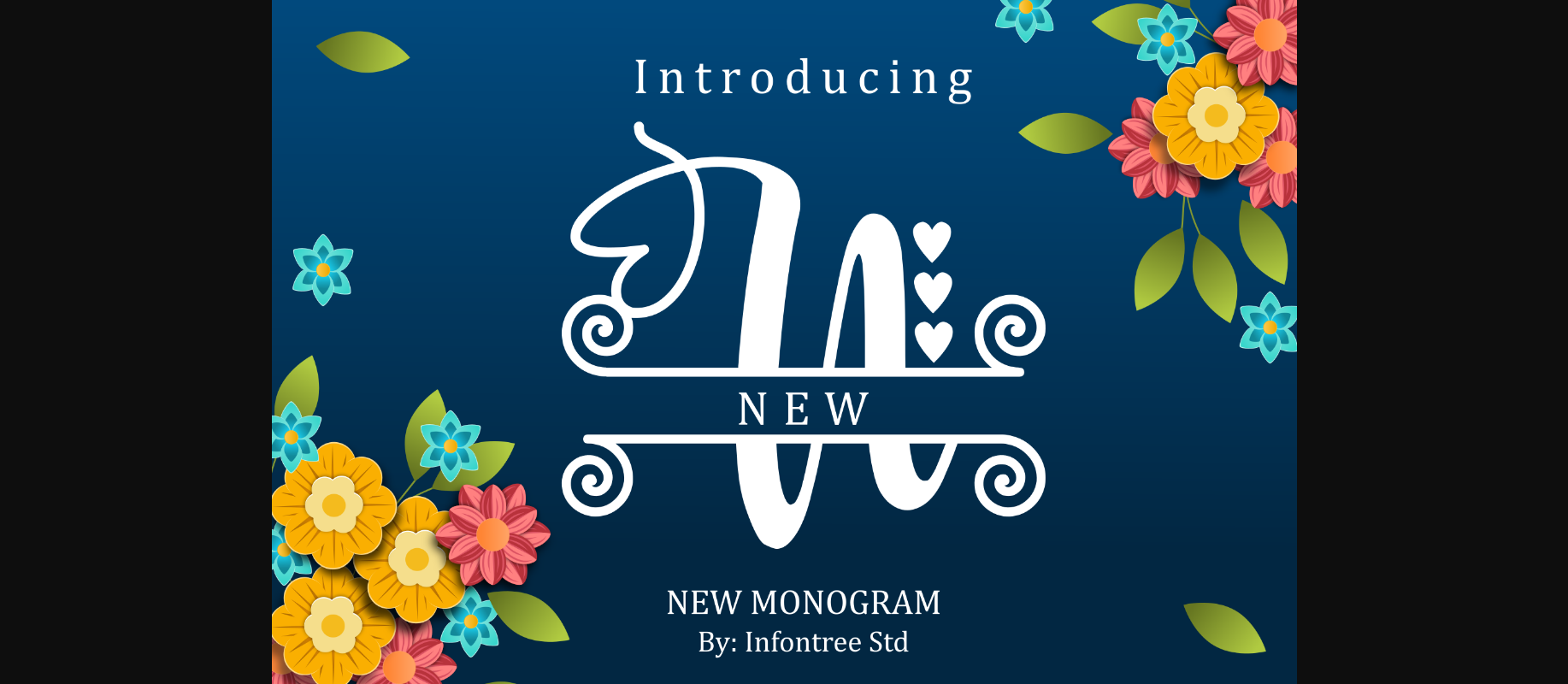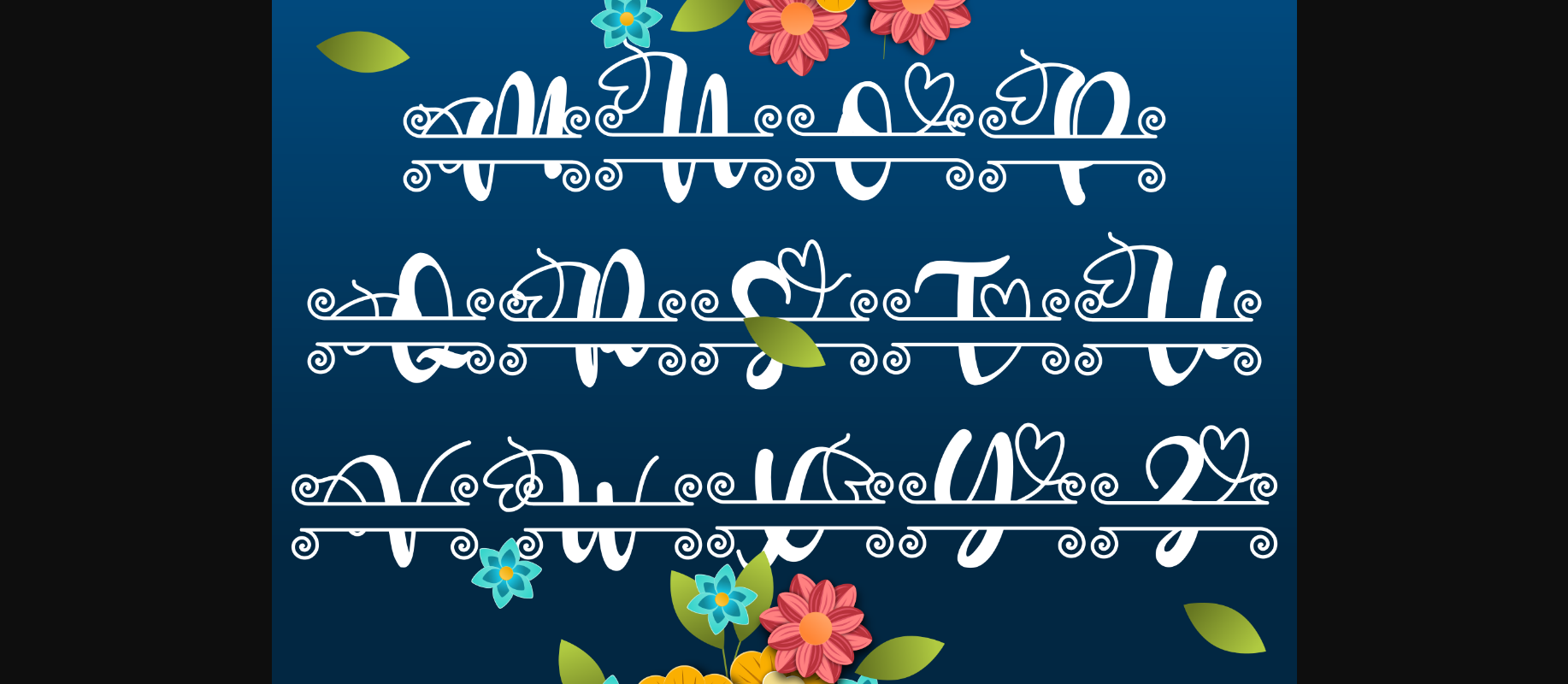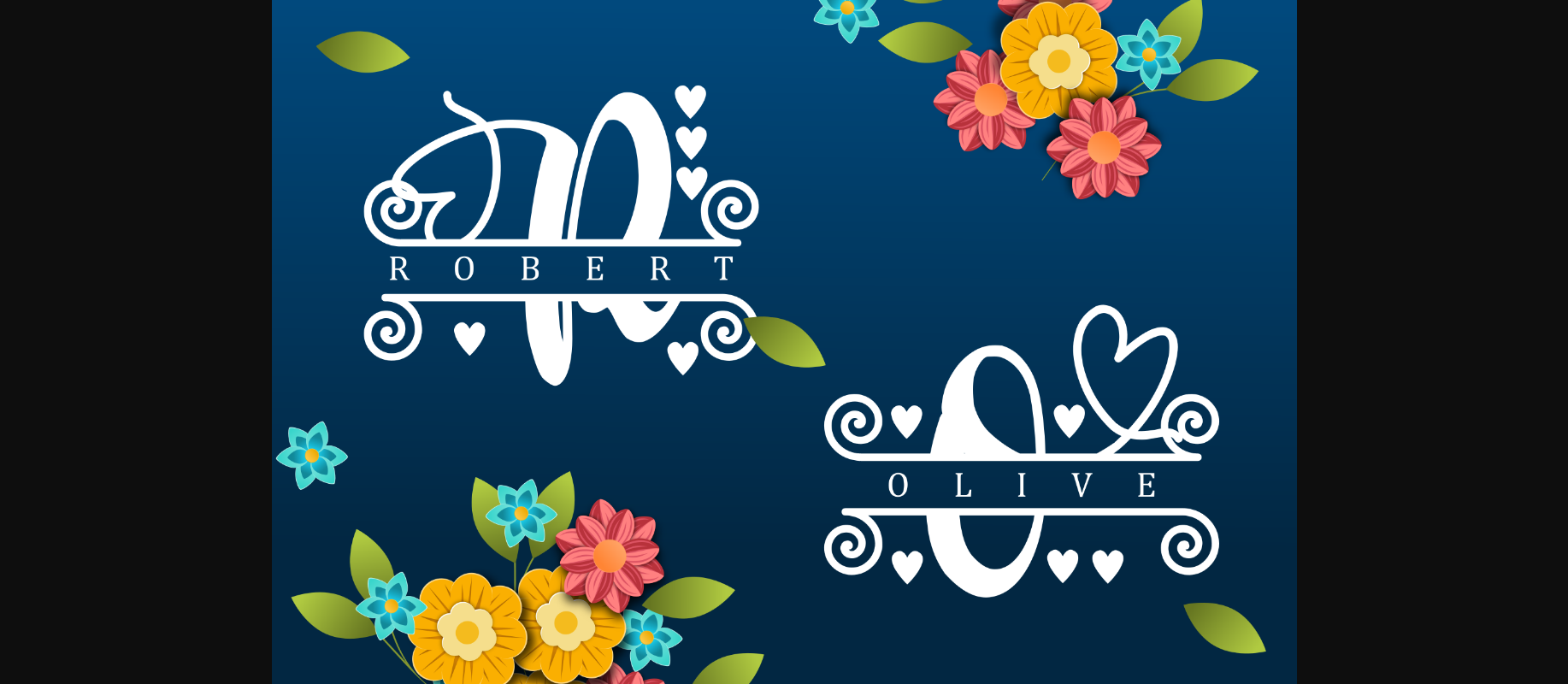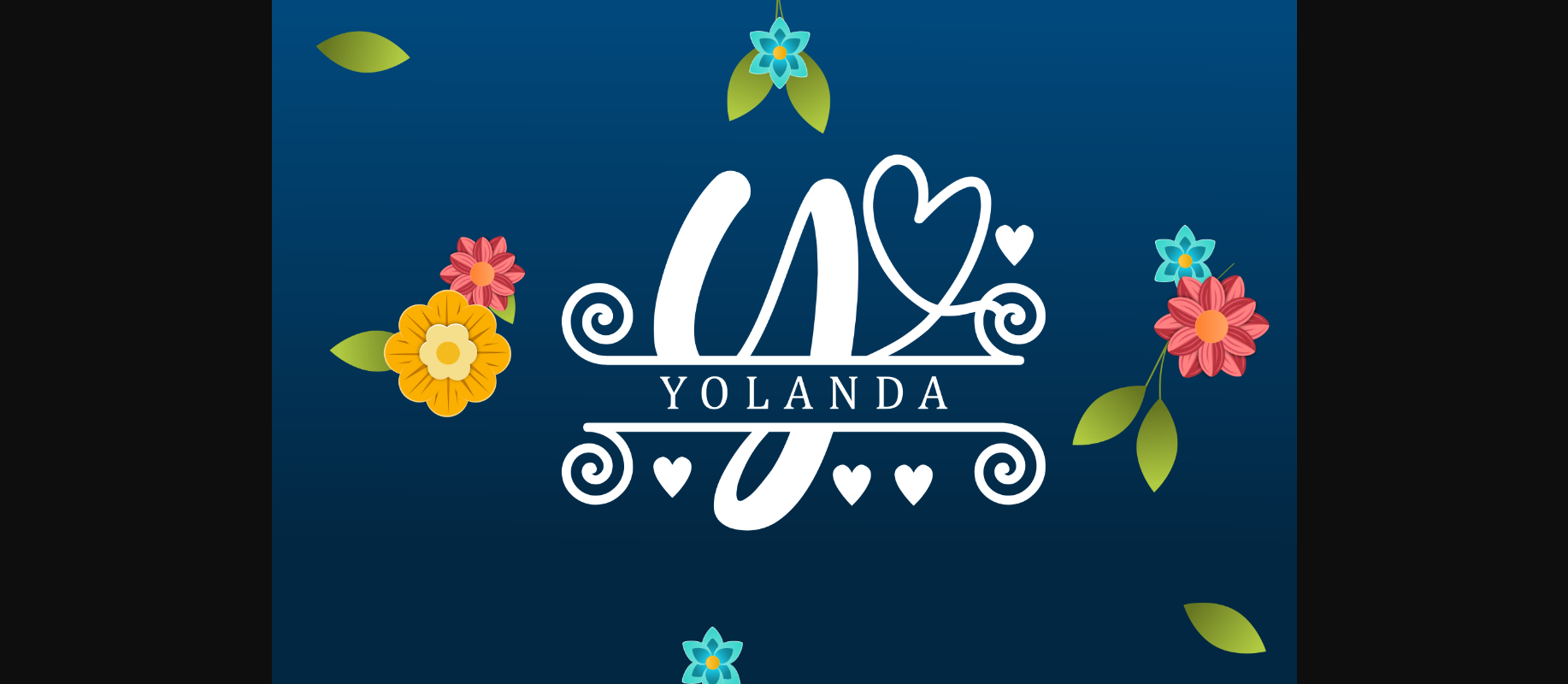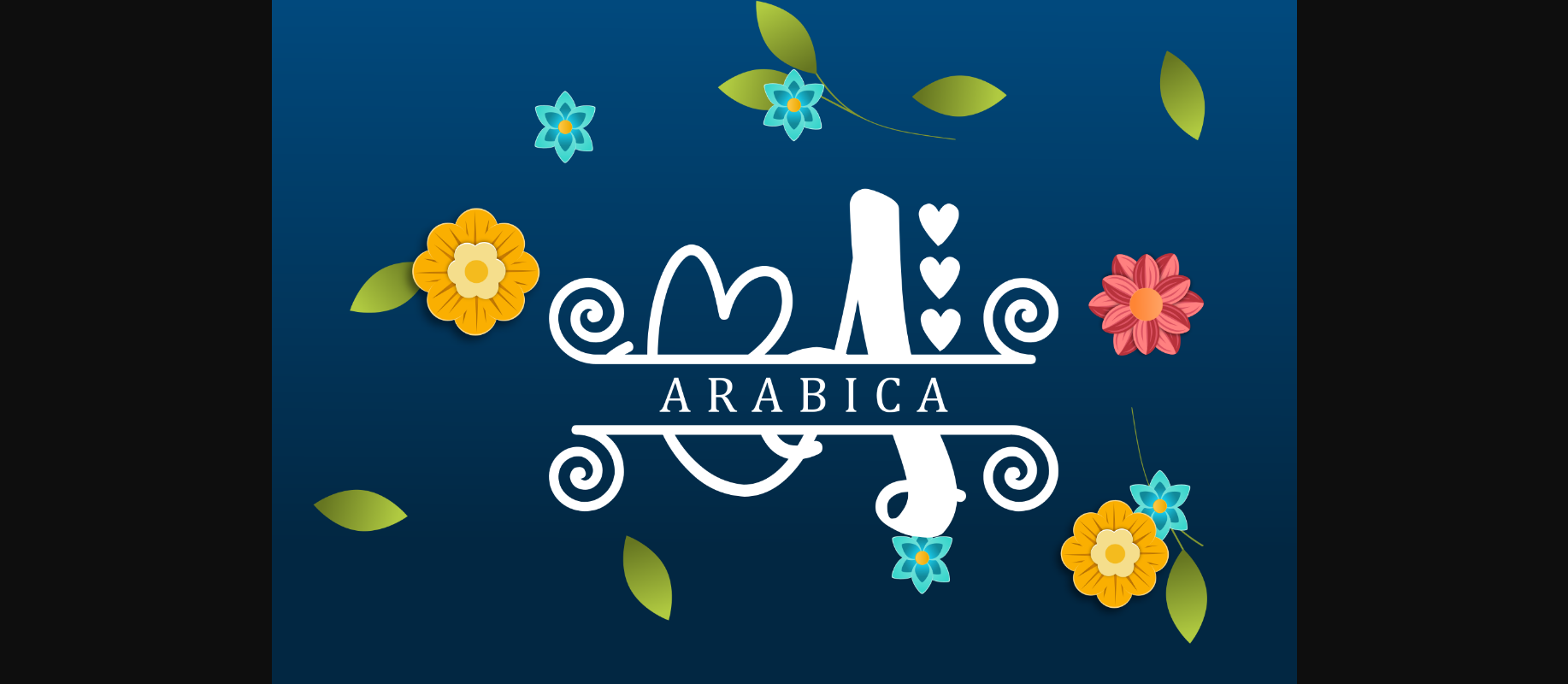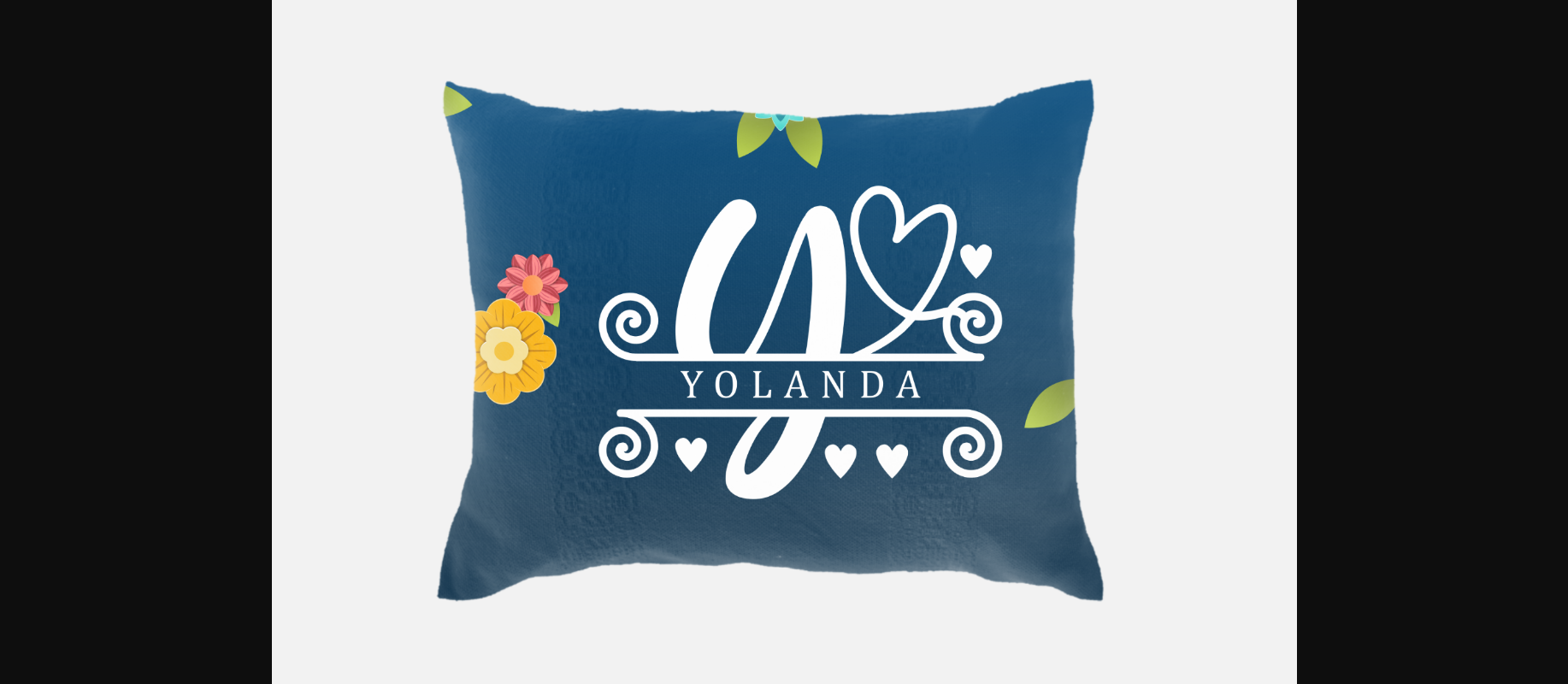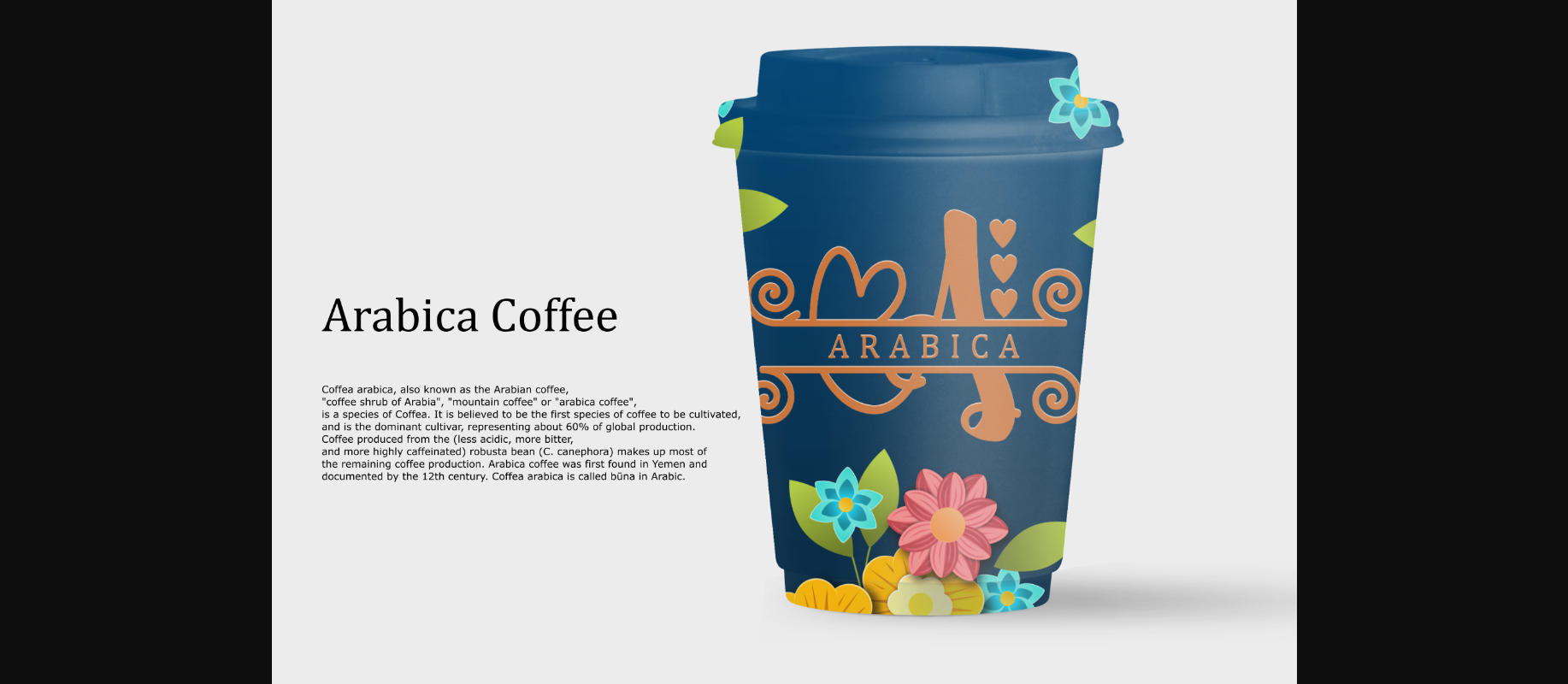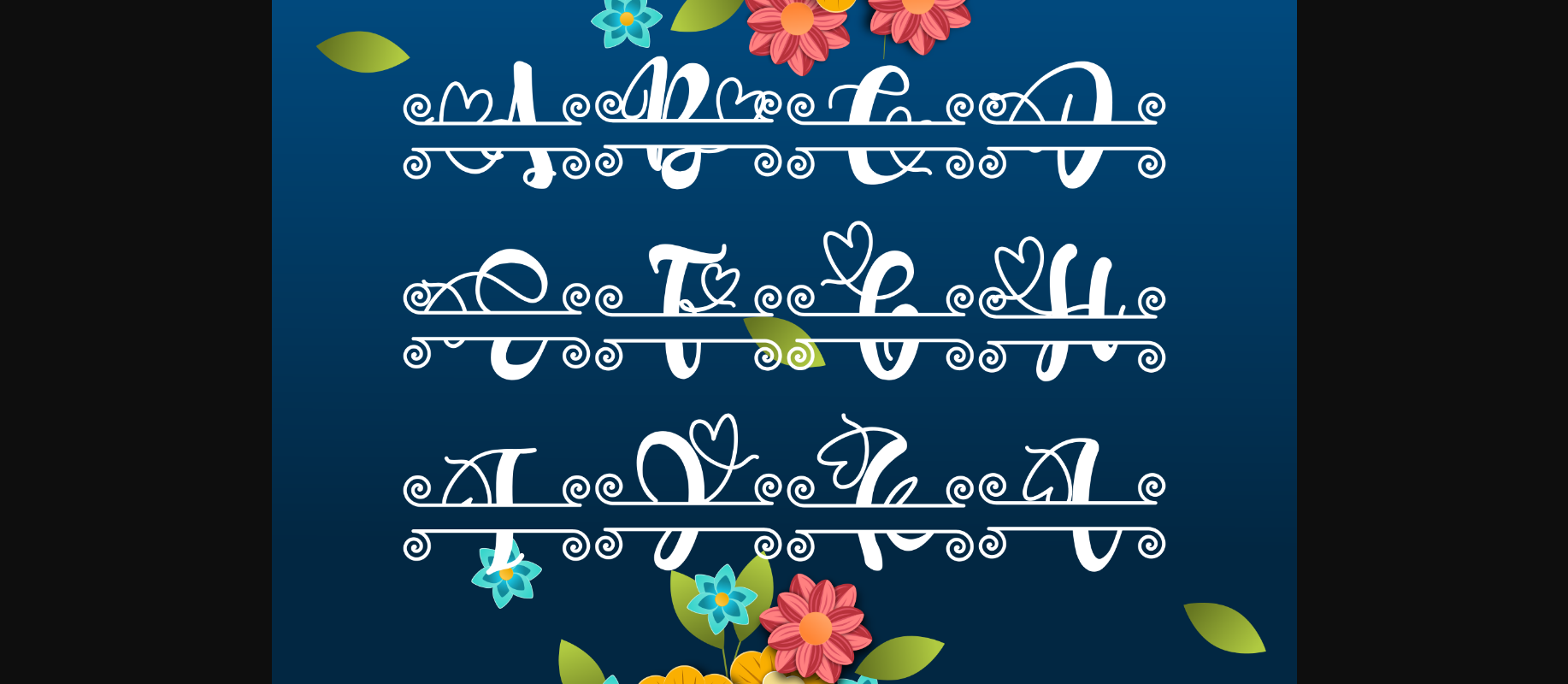
New Monogram Font
About New Monogram Font
New Monogram simplifies elegance into one truly outstanding decorative font. Fall in love with its incredibly versatile style and use it to create gorgeous wedding invitations, beautiful stationary art, eye-catching social media posts, and much more!